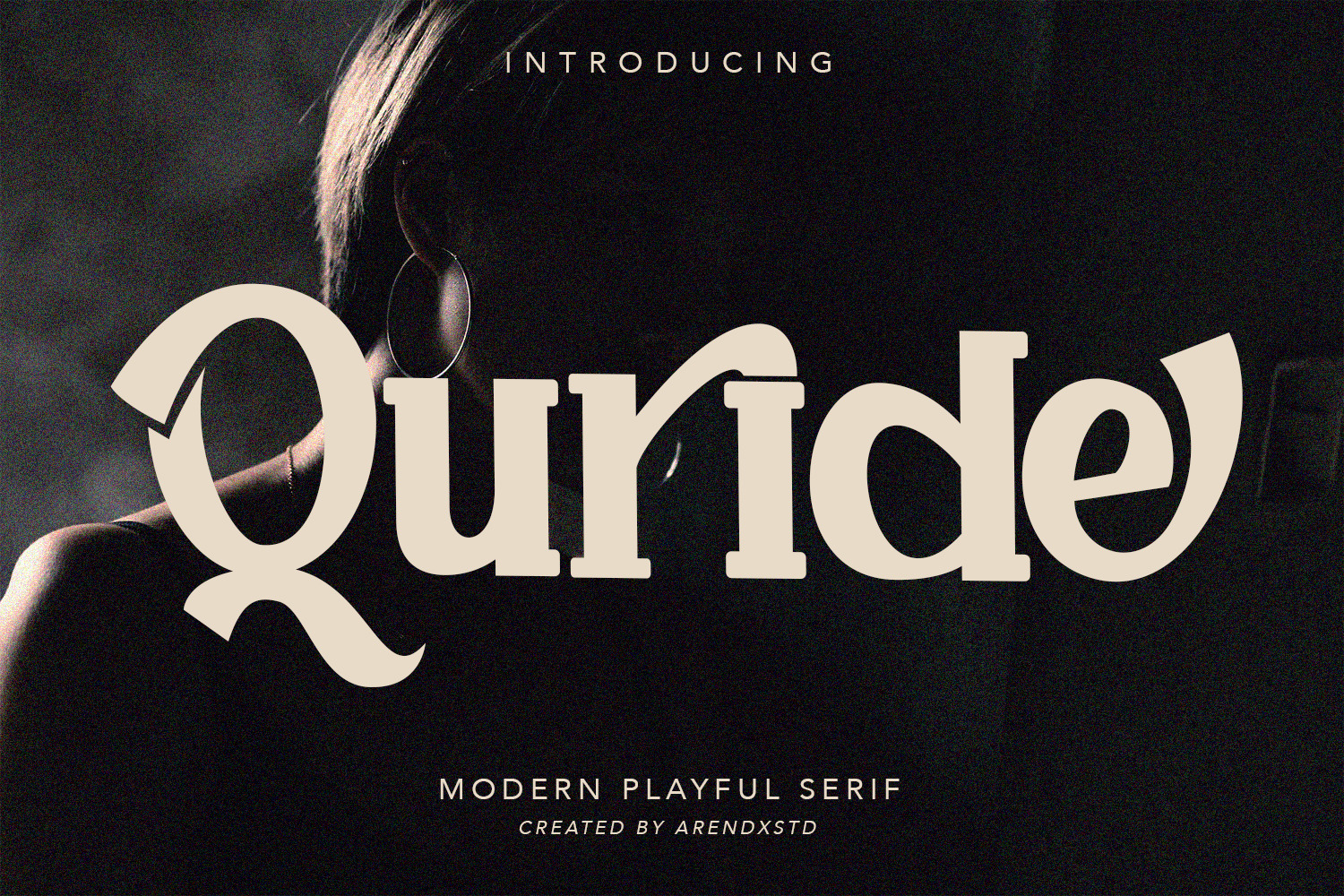
Quride - Display Serif Font
Introducing my new font - Quride
Quride is a modern Serif with a very unique alternate and ligature
Quride came with opentype features such stylistic alternates, stylistic sets & ligatures good for logotype, poster, badge, book cover, tshirt design, packaging and any more.